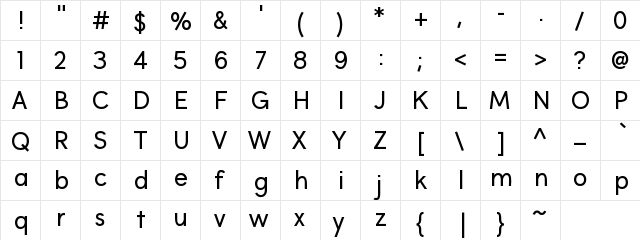
KingsHatSansTextBoldPKA Regular
Design Context for KingsHatSansTextBoldPKA Typeface
KingsHatSansTextBoldPKA takes a measured approach to typography — its balanced proportions and neutral character make it a reliable workhorse for both digital and print work. Its bold stroke weight gives it real presence on the page.